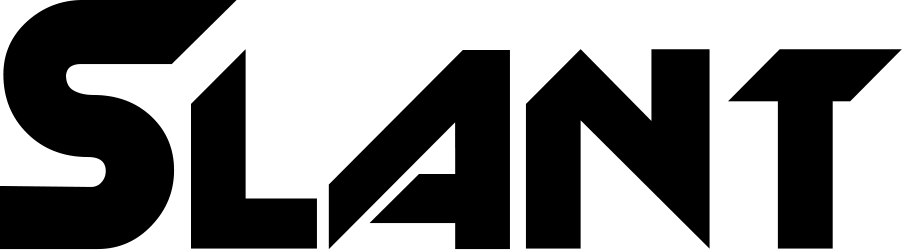
Slant Font
Say hello to a techno font and get ready to create a catchy text layout. Slant can be used for games, sports, logos, etc. The characters are almost bold and come with angles. Don’t hesitate and give it a shot right away.…
Say hello to a techno font and get ready to create a catchy text layout. Slant can be used for games, sports, logos, etc. The characters are almost bold and come with angles. Don’t hesitate and give it a shot right away. If you want more, discover our extensive library, and you’ll enjoy it!